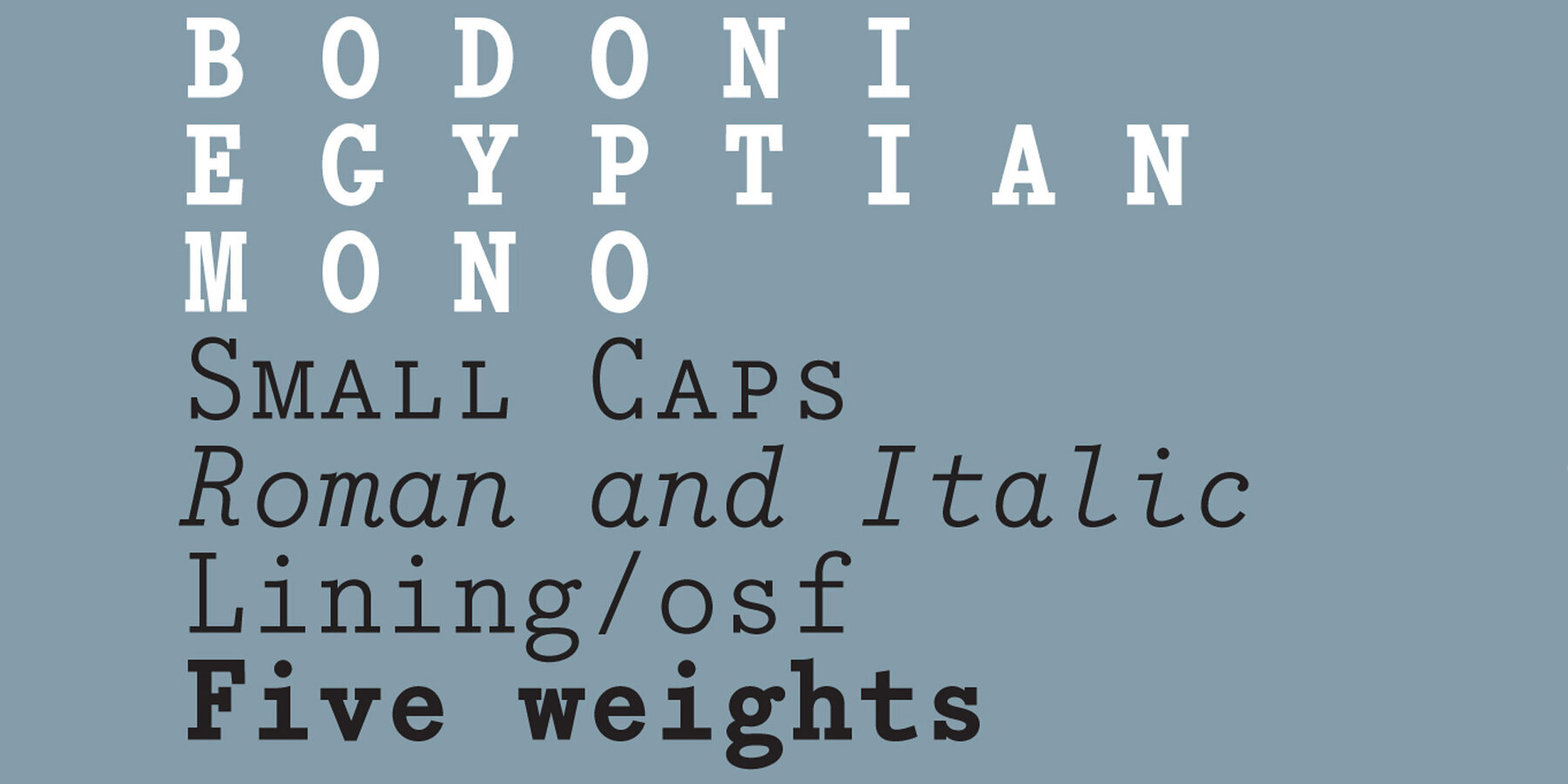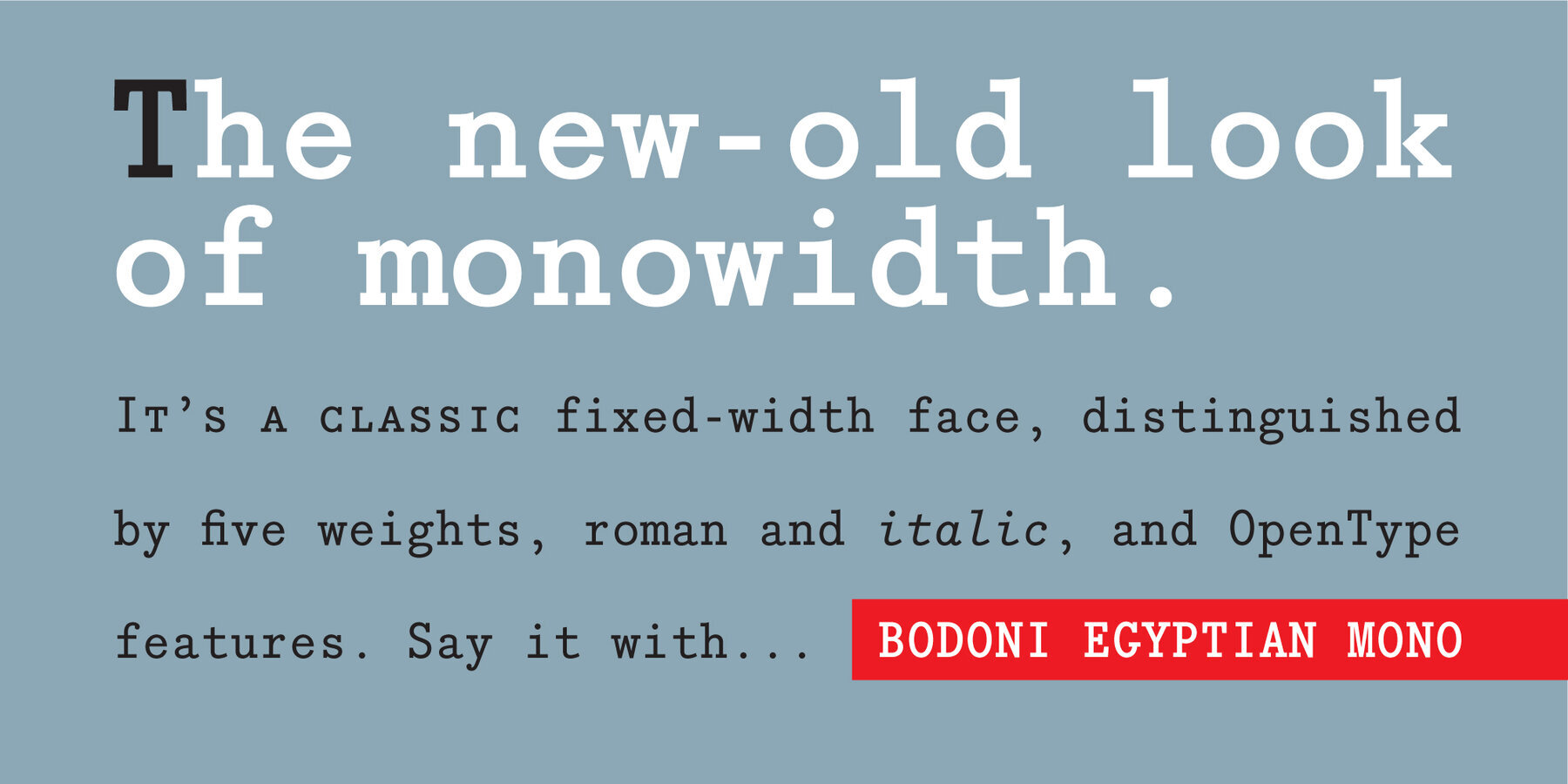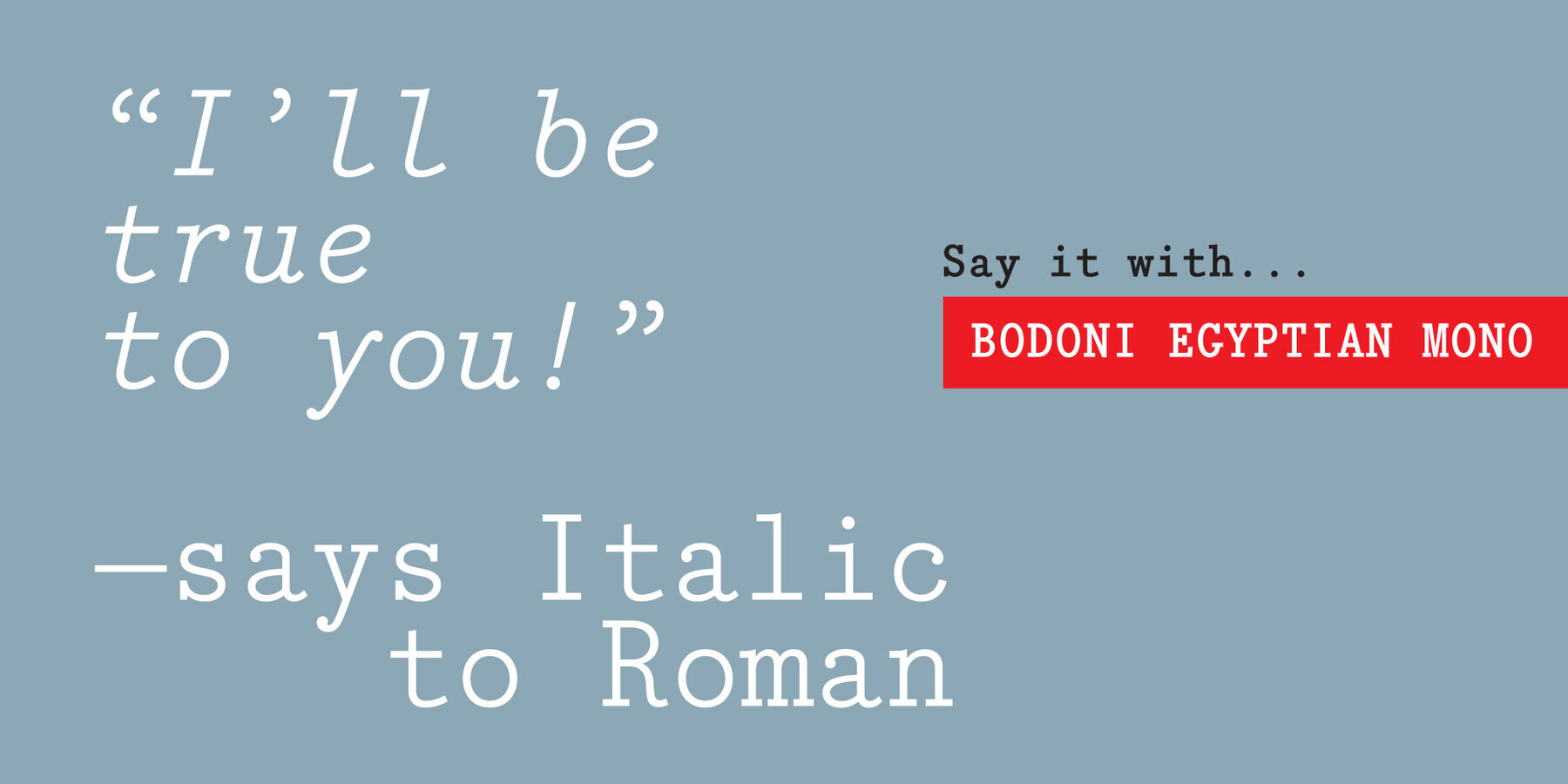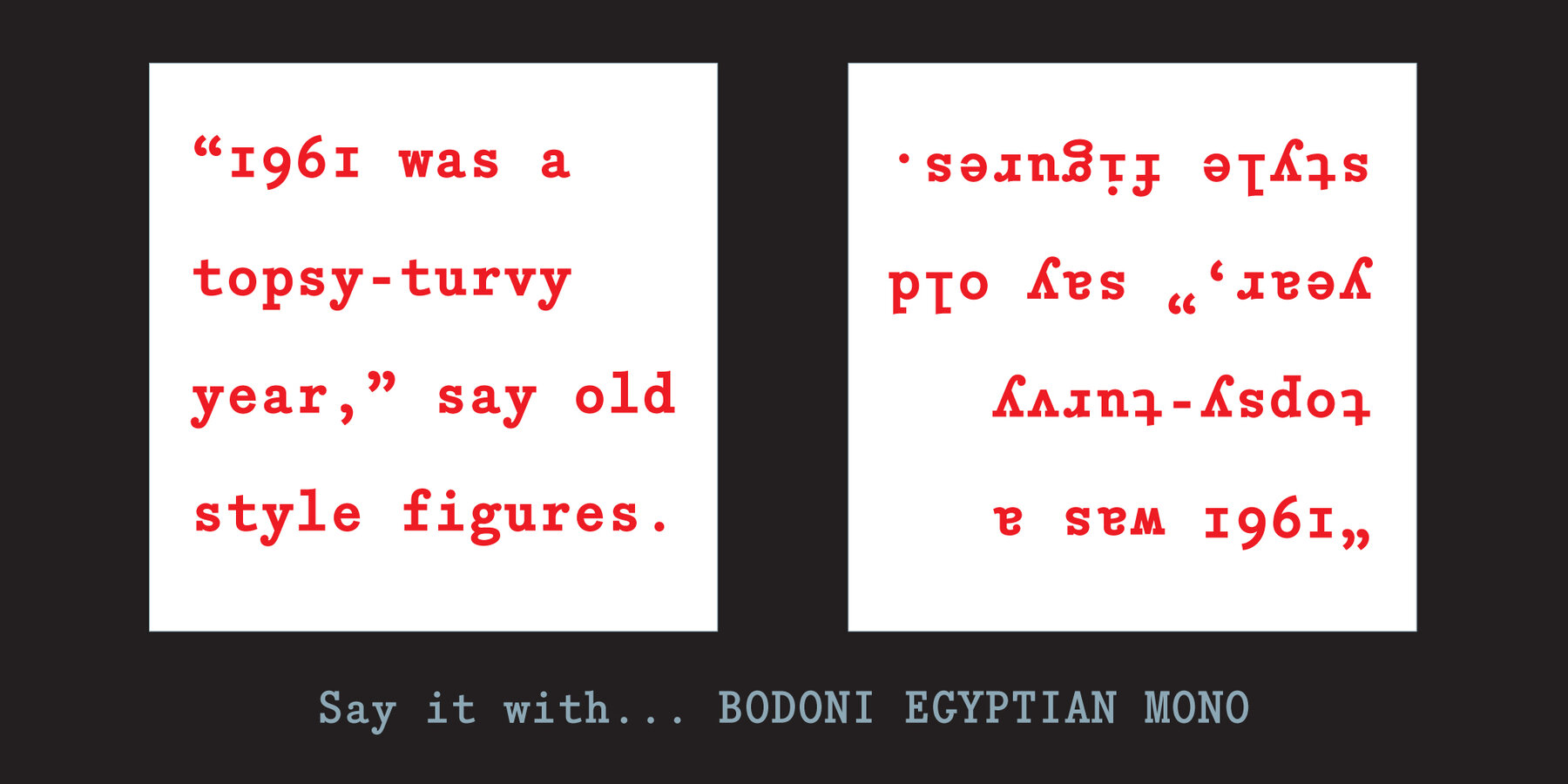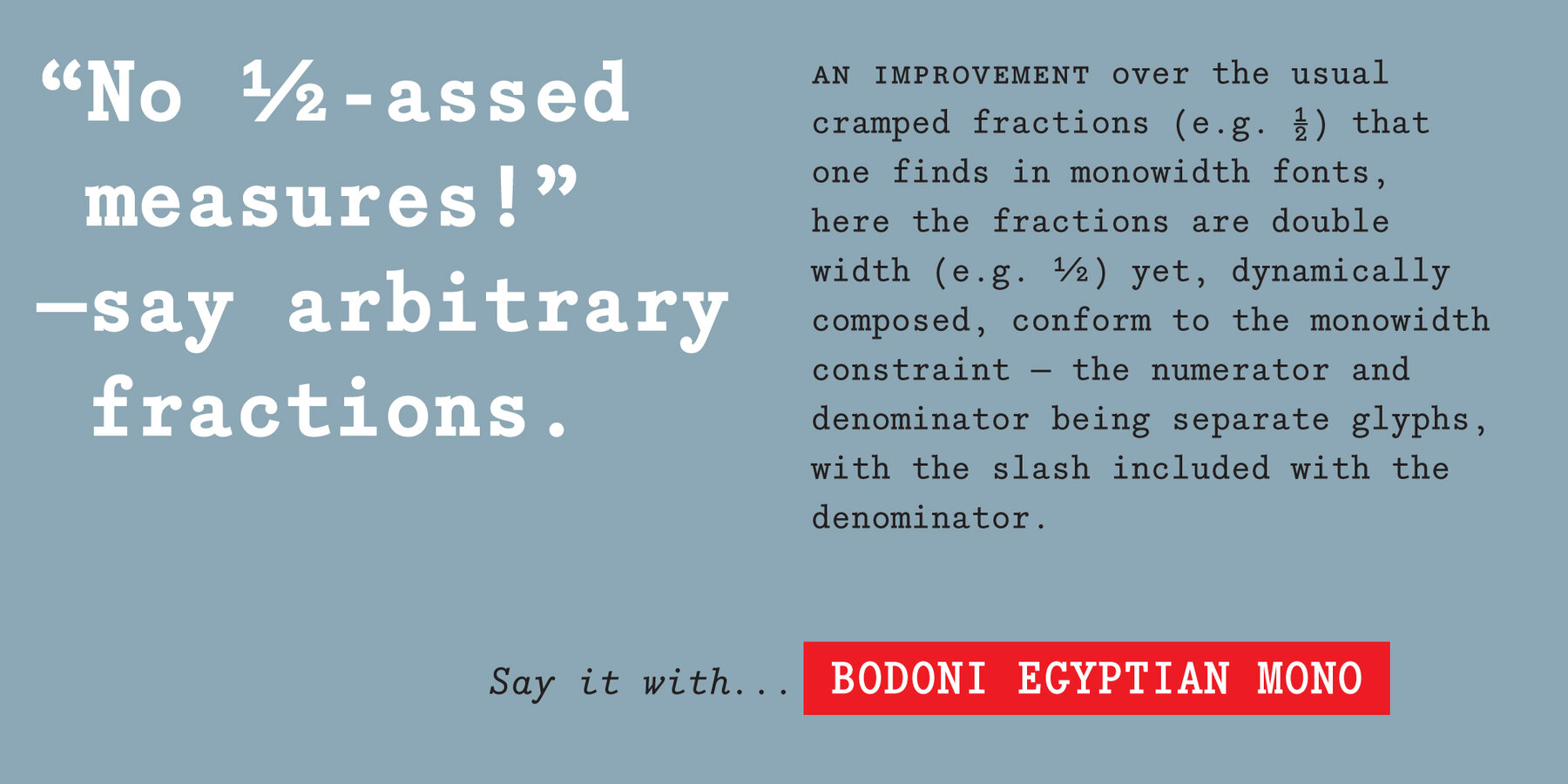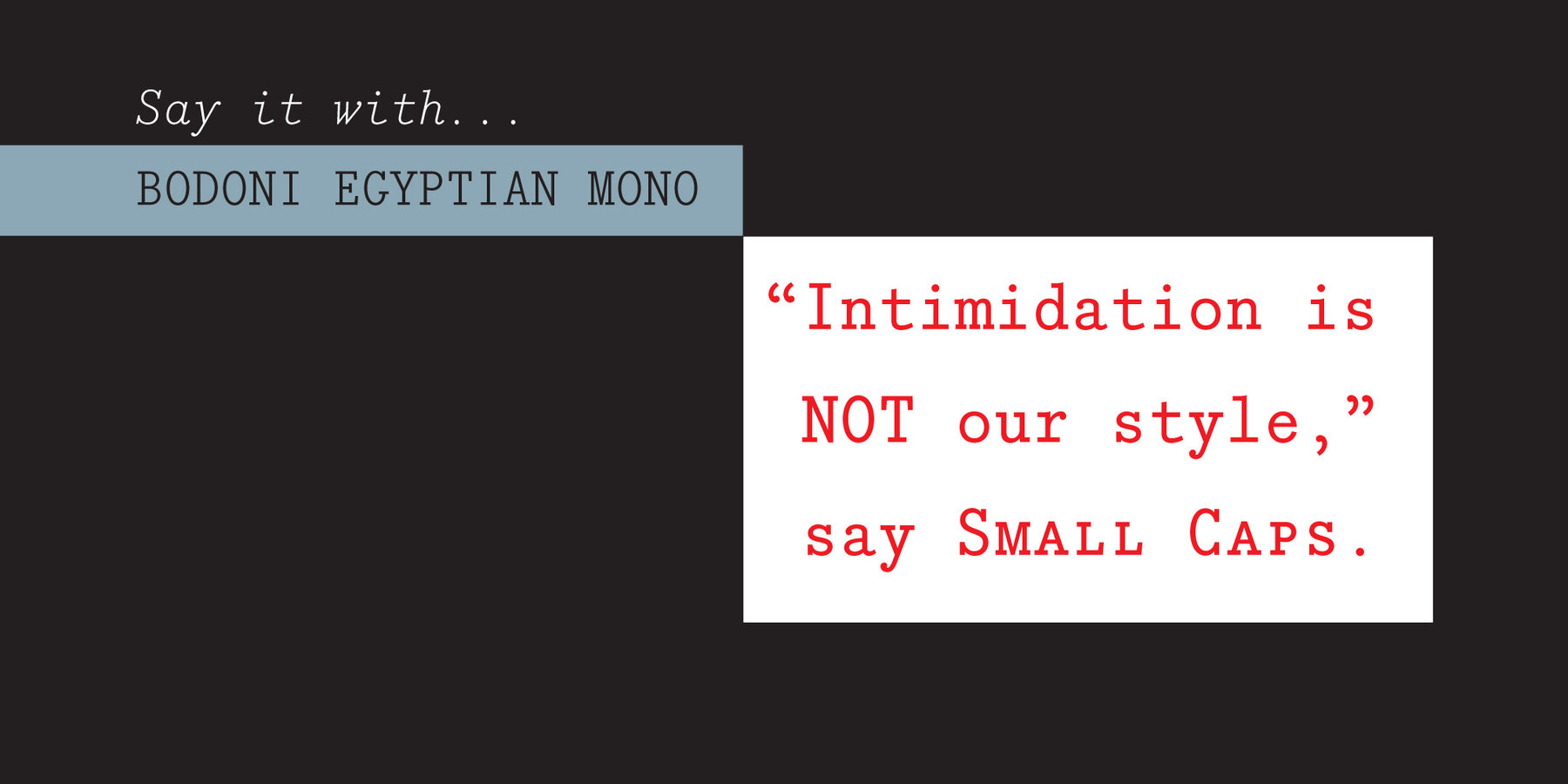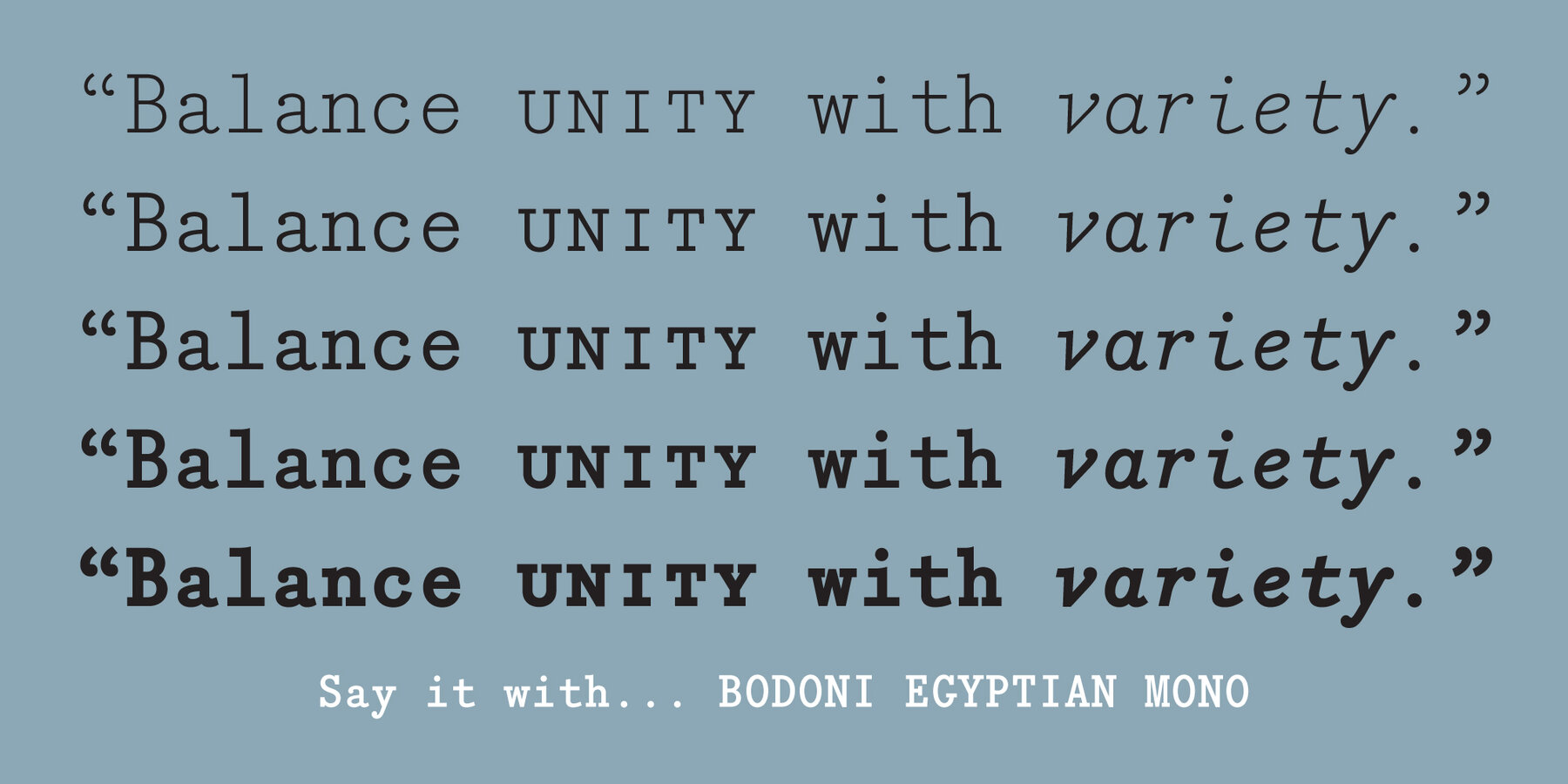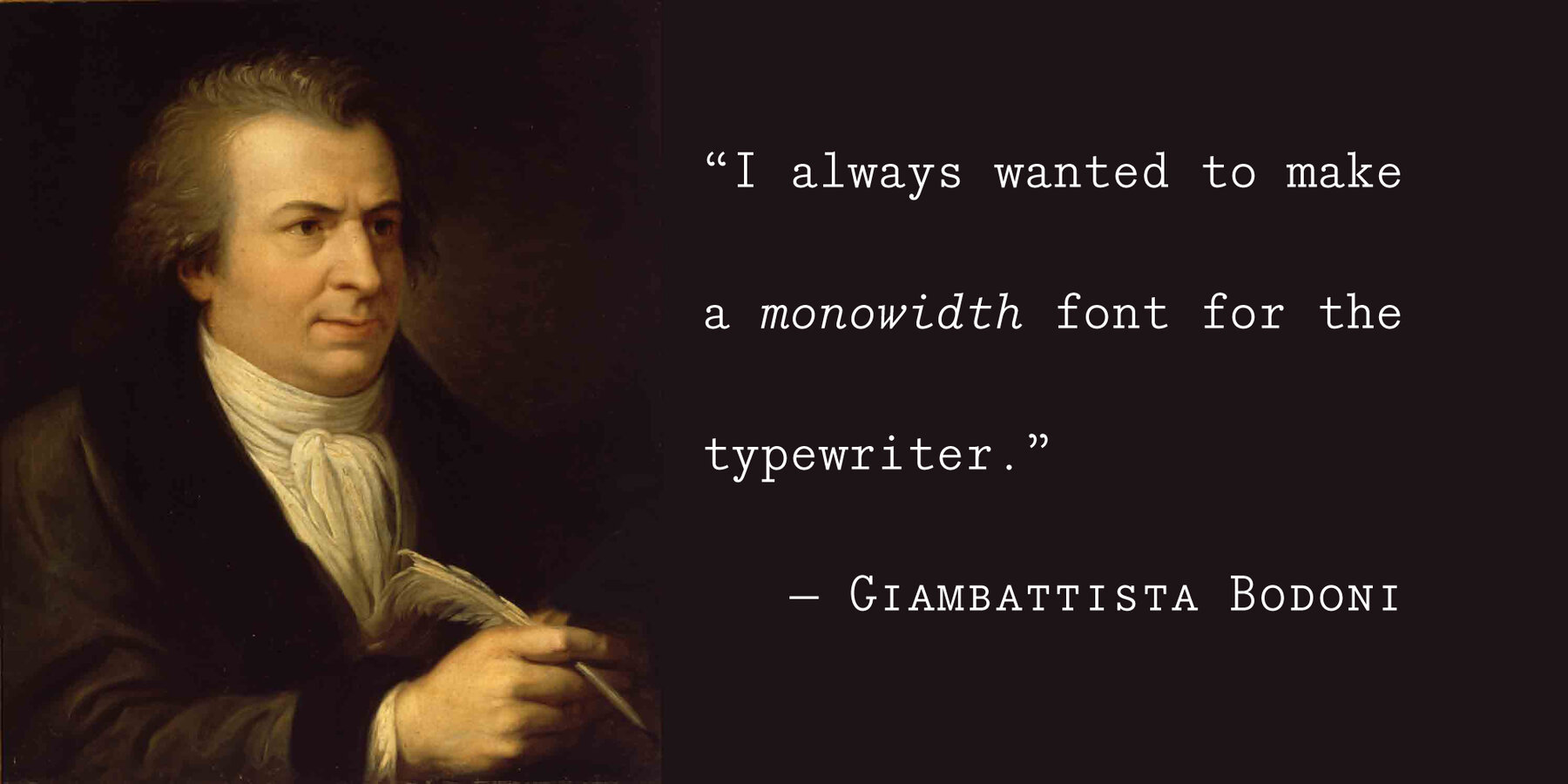
Bodoni Egyptian Mono® Font
As an ironic gloss on the unsophisticated “typewriter” genre, Bodoni Egyptian Mono® channels the classic dignity of early 19th century letter forms, presenting as a quite proper family of OpenType fonts, with a copious range of “expert” features—small caps, fractions, superior and inferior figures, alternate old style figures—rendered throughout five weights in both roman and italic.